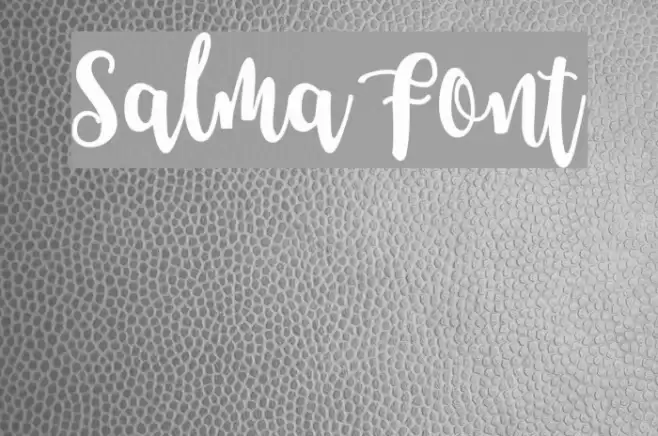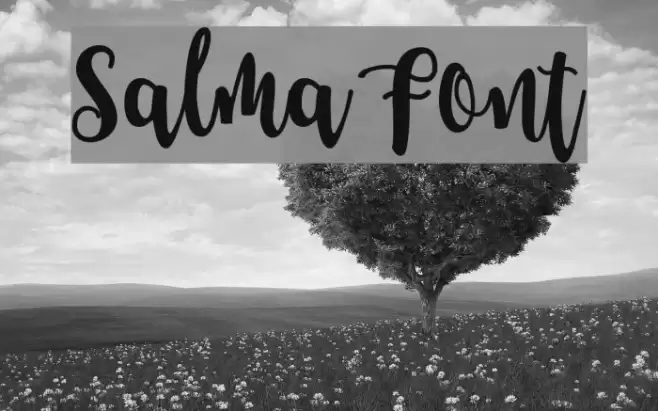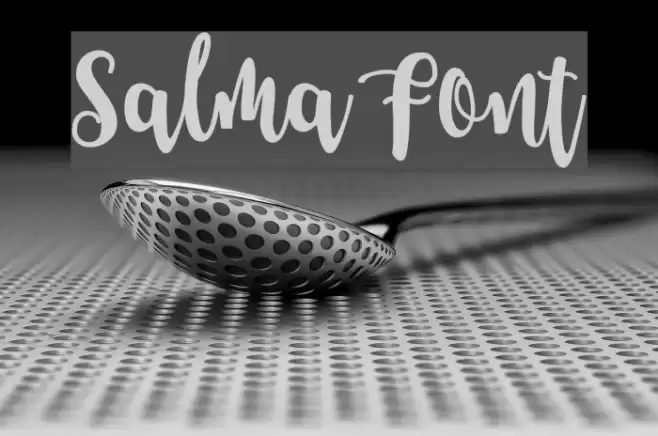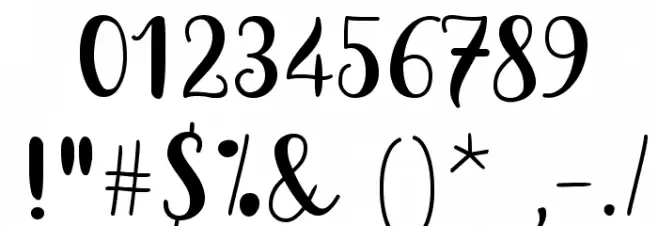
Salma Font
Salma Description
This font showcases a lively and dynamic script style, characterized by its flowing, cursive letterforms. The uppercase letters exhibit a bold and confident presence, with elegant loops and swashes that add a touch of sophistication. The lowercase letters maintain a consistent rhythm, with smooth connections and a playful bounce that enhances readability. The numerals are well-integrated, matching the overall style with a slight slant and decorative flair. Special characters are thoughtfully designed, complementing the script's aesthetic with unique and expressive forms. This font's overall appearance is both stylish and approachable, making it suitable for a variety of creative applications.
A lively and dynamic script font with elegant loops and playful bounce from Script fonts.
- Proposed Projects: Ideal for wedding invitations, greeting cards, branding, and social media graphics.
- Use Case: Logos, Headlines, Invitations